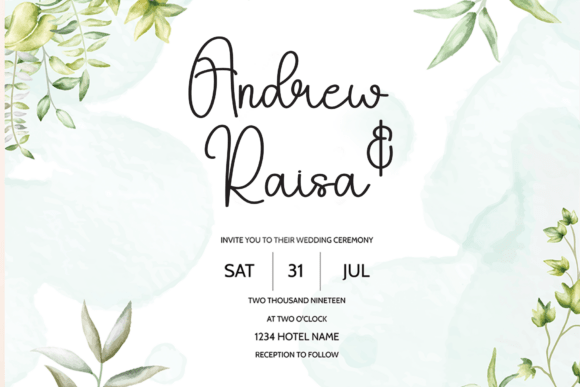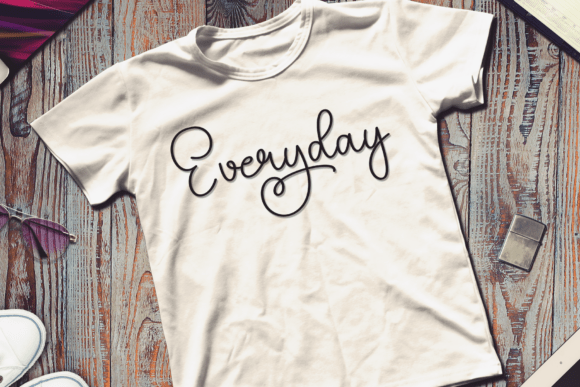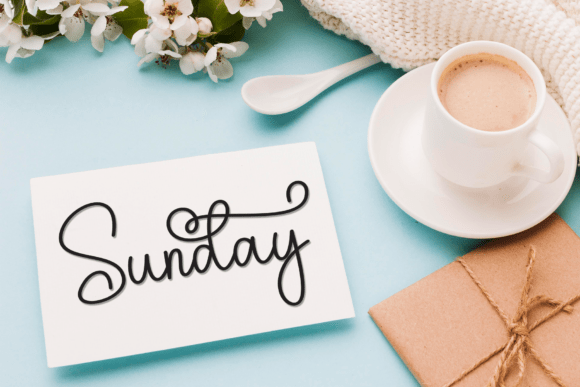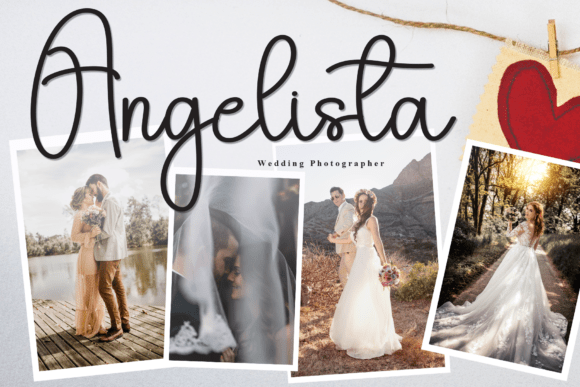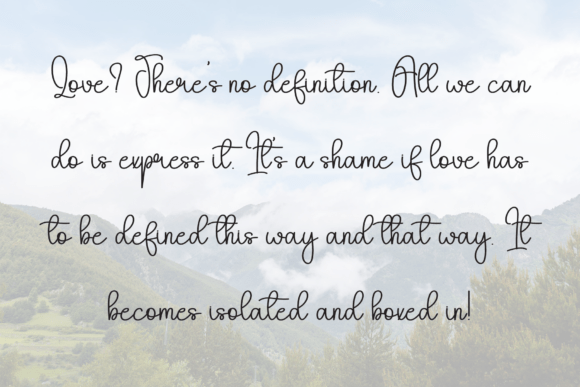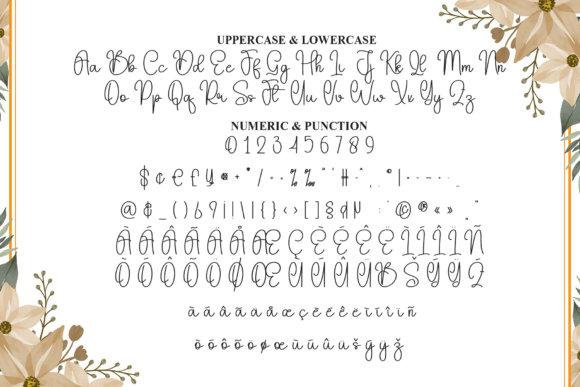
Introducing Delighter Font: The Ultimate Handwritten Display Font for Whimsical Designs
Are you tired of using the same old fonts for your designs? Do you want to add a touch of warmth and friendliness to your wedding invitations, greeting cards, or any other design project? Look no further than Delighter Font, a charming and engaging handwritten display font that’s sure to bring a smile to your audience’s faces.
A Font that Exudes Warmth and Friendliness
Delighter Font is a beautifully crafted handwritten display font that’s infused with a charmingly cute aesthetic and a playful spirit. Its unique and whimsical design makes it perfect for adding a personal touch to any design project. Whether you’re a designer, crafter, or DIY enthusiast, Delighter Font is sure to become your go-to font for creating eye-catching and engaging designs.
The Perfect Font for Wedding Invitations and Greeting Cards
Wedding invitations and greeting cards are special occasions that deserve a font that’s just as special. Delighter Font is the perfect choice for these types of designs, as it adds a touch of elegance and sophistication while still being playful and fun. Its whimsical design will make your wedding invitations and greeting cards stand out from the crowd and leave a lasting impression on your loved ones.
Bring Your Design Ideas to Life with Delighter Font
Delighter Font is more than just a font – it’s a design solution that can bring your ideas to life. Its unique and playful design makes it perfect for a wide range of design projects, from party invitations and flyers to social media graphics and blog posts. With Delighter Font, you can add a touch of personality and whimsy to any design project and make it truly unforgettable.
Key Features of Delighter Font
- Handwritten display font: Delighter Font is a beautifully crafted handwritten display font that’s perfect for adding a personal touch to any design project.
- Charmingly cute aesthetic: Delighter Font has a charmingly cute aesthetic that’s sure to delight your audience and make your designs stand out.
- Playful spirit: Delighter Font has a playful spirit that’s perfect for adding a touch of fun and whimsy to any design project.
- Perfect for wedding invitations and greeting cards: Delighter Font is the perfect choice for wedding invitations and greeting cards, as it adds a touch of elegance and sophistication while still being playful and fun.
- Wide range of design applications: Delighter Font can be used for a wide range of design projects, from party invitations and flyers to social media graphics and blog posts.
Why Choose Delighter Font?
There are many fonts to choose from, but Delighter Font stands out from the crowd for several reasons. Here are just a few reasons why you should choose Delighter Font for your next design project:
- Unique and whimsical design: Delighter Font has a unique and whimsical design that’s sure to make your designs stand out from the crowd.
- Easy to read: Despite its playful design, Delighter Font is easy to read and can be used for both headings and body text.
- High-quality design: Delighter Font is a high-quality design that’s been carefully crafted to ensure that it looks great in any design project.
- Versatile: Delighter Font is versatile and can be used for a wide range of design projects, from wedding invitations and greeting cards to party invitations and flyers.
In conclusion, Delighter Font is a charming and engaging handwritten display font that’s perfect for adding a touch of warmth and friendliness to any design project. Its unique and whimsical design makes it perfect for wedding invitations, greeting cards, and any other design project that needs a personal touch. With its wide range of design applications and high-quality design, Delighter Font is sure to become your go-to font for creating eye-catching and engaging designs.